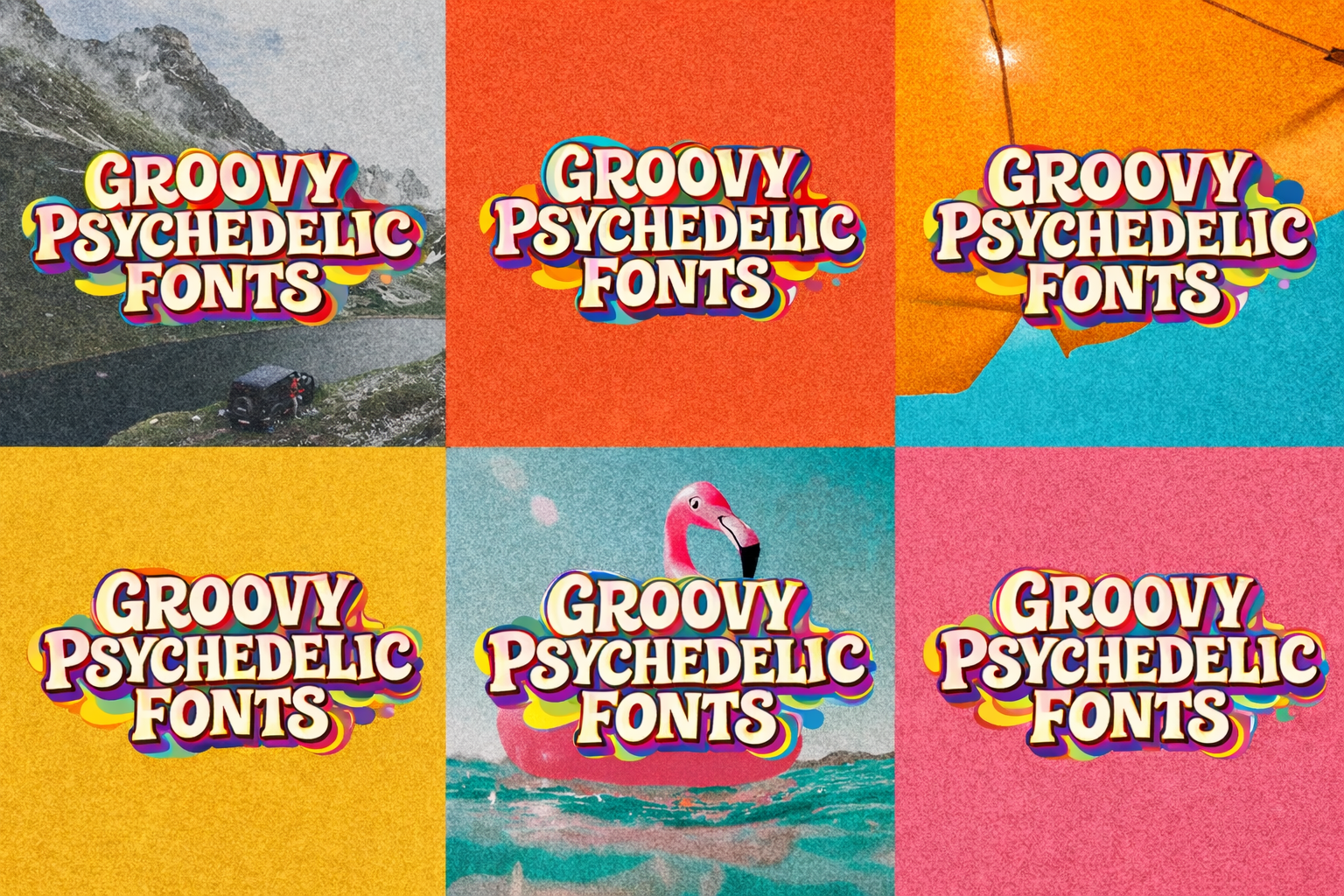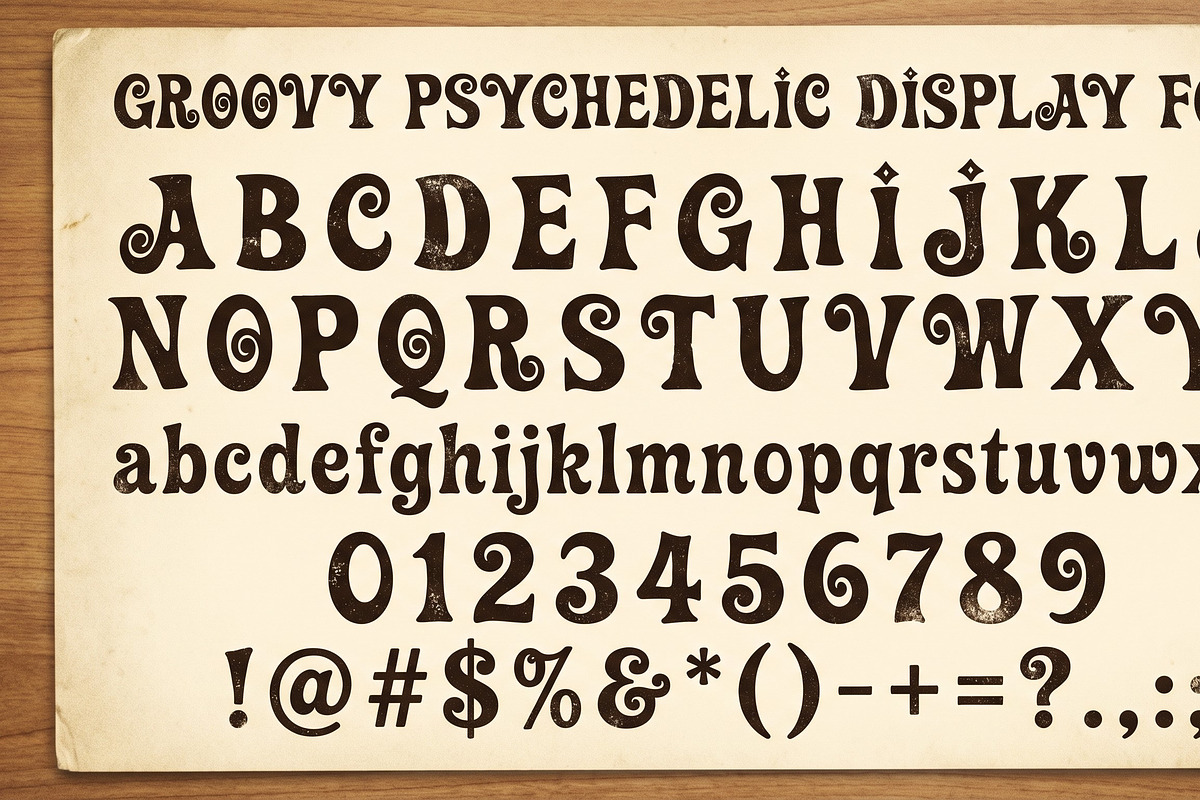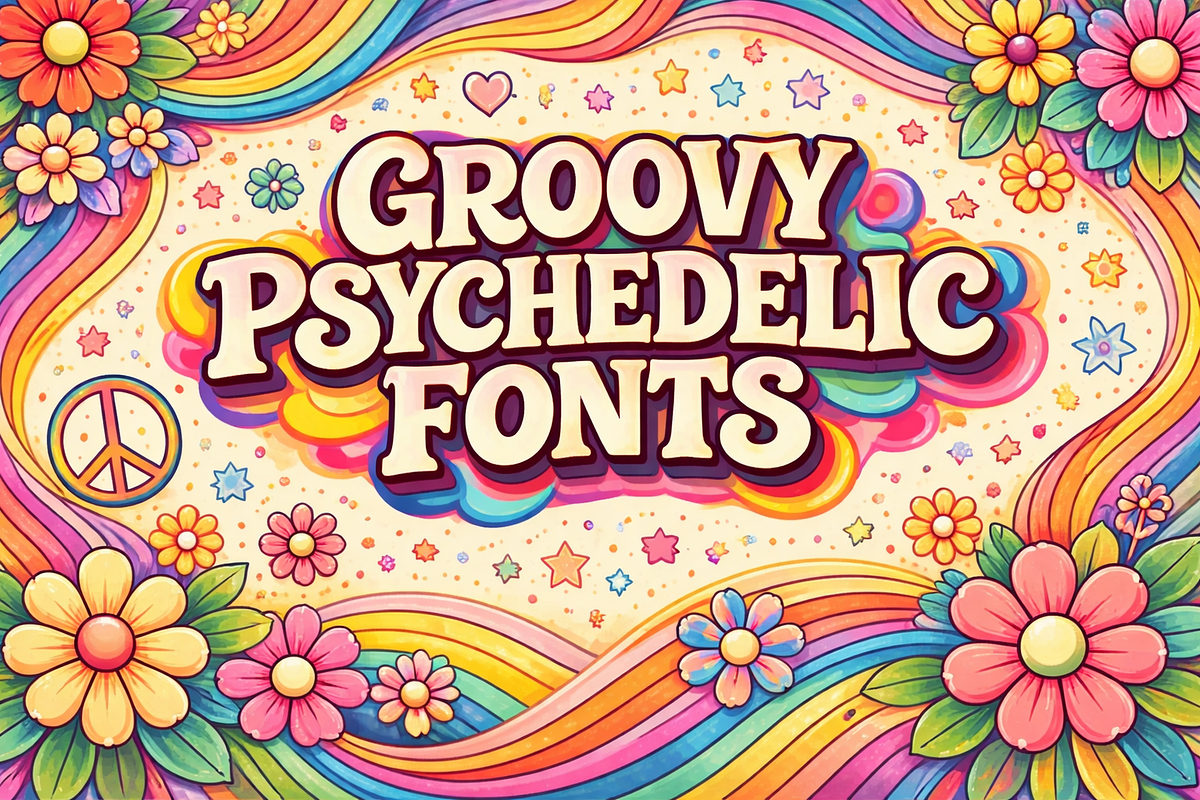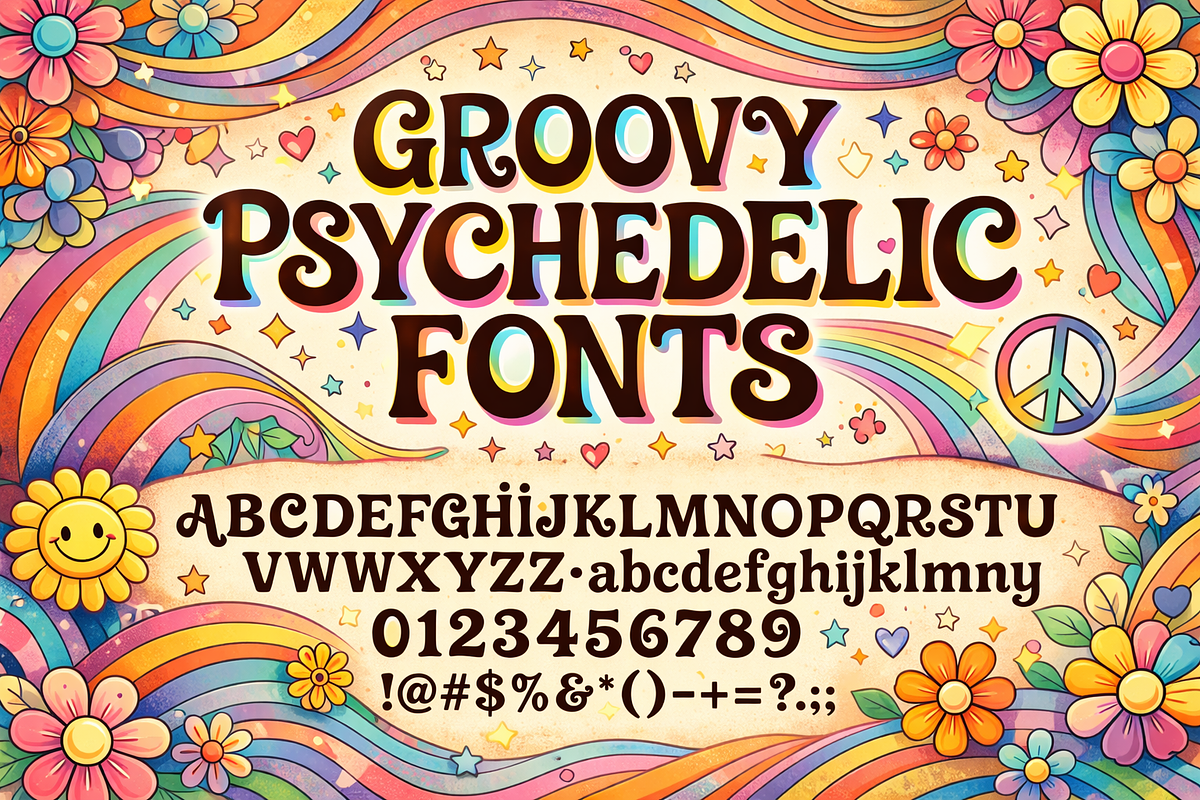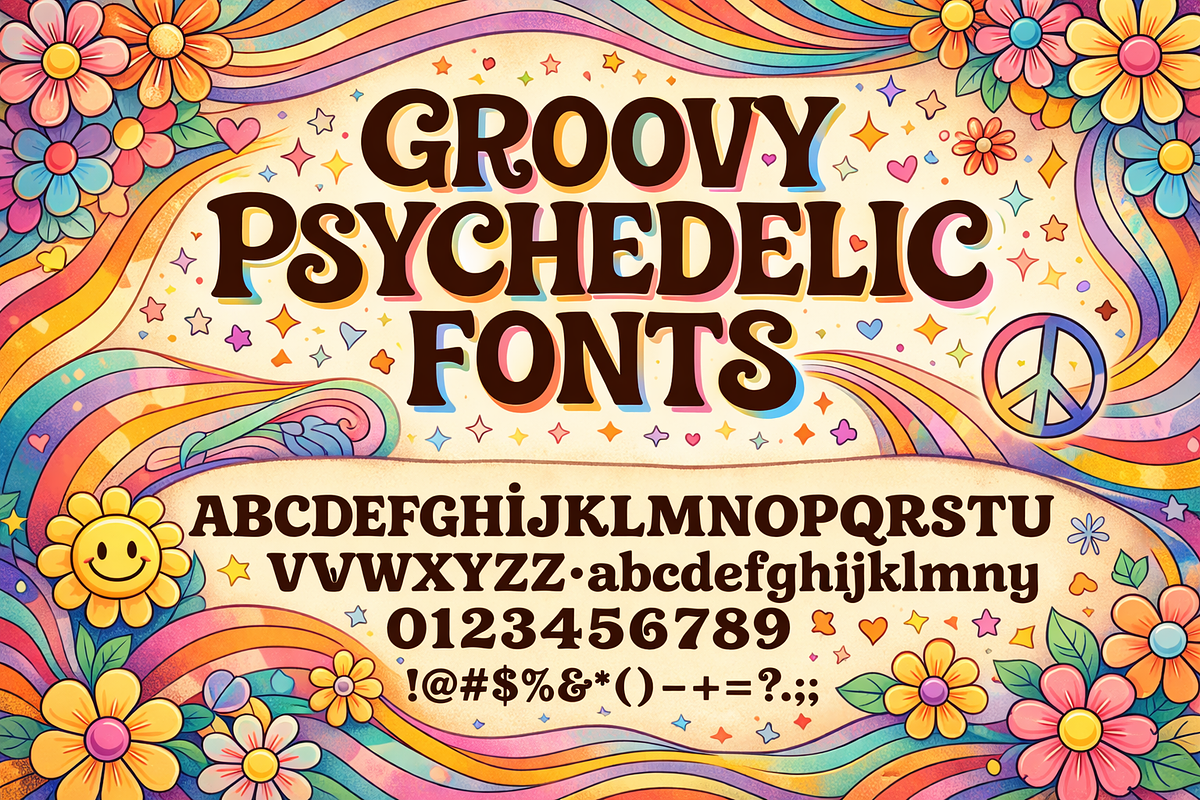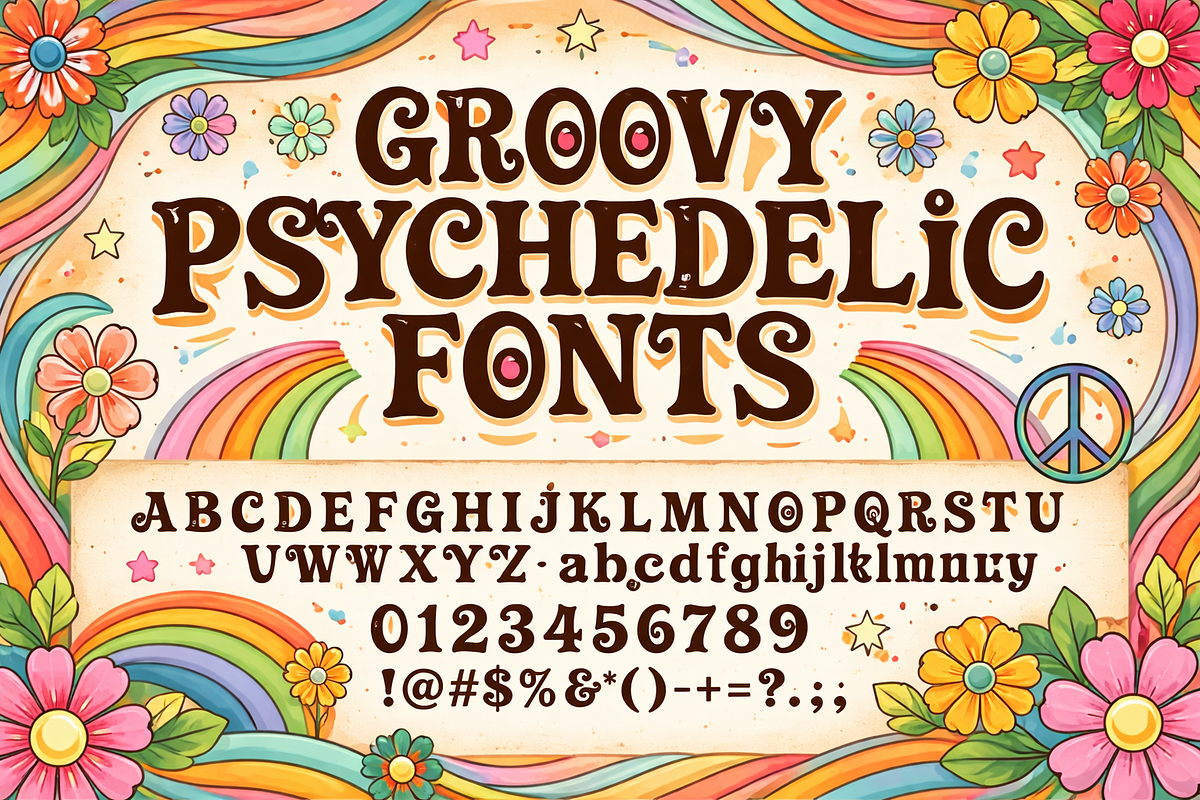
groovy psychedelic Retro fonts
Groovy Psychedelic Fonts – Retro 70s Funky Display Typeface
Bring back the bold and vibrant vibes of the 60s and 70s with this Groovy Psychedelic Fonts display typeface. Designed with smooth curves, funky shapes, and retro-inspired details, this font is perfect for creating eye-catching designs with a nostalgic psychedelic feel.
This typeface works great for posters, logos, branding, album covers, t-shirt designs, social media graphics, and vintage-style projects. The playful and groovy letterforms instantly add personality and a unique retro touch to any design.
Add a bold retro statement to your designs with this stylish psychedelic font and make your work stand out!